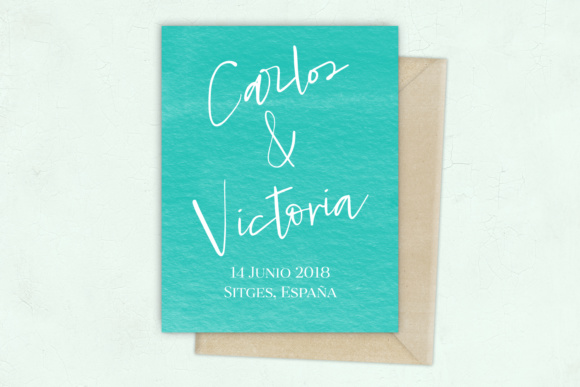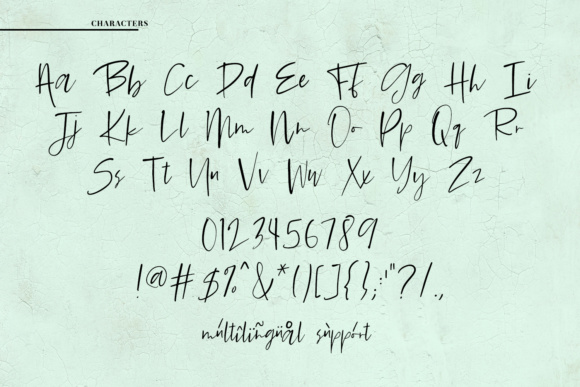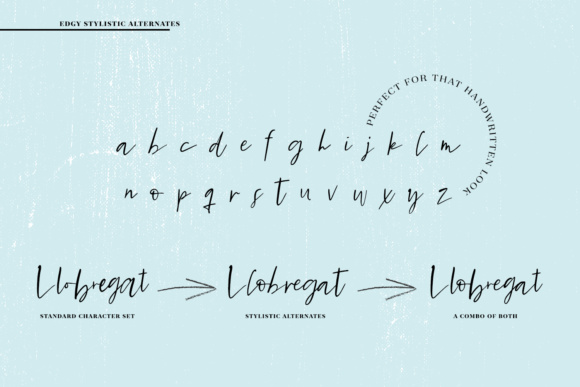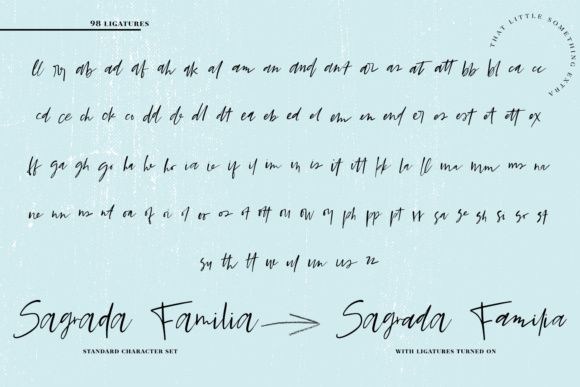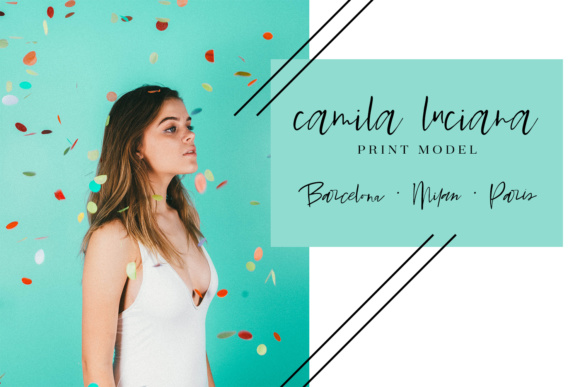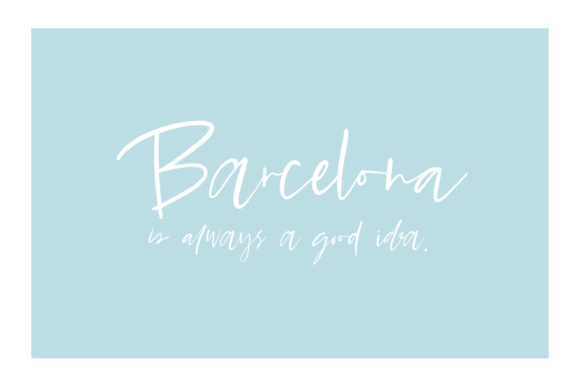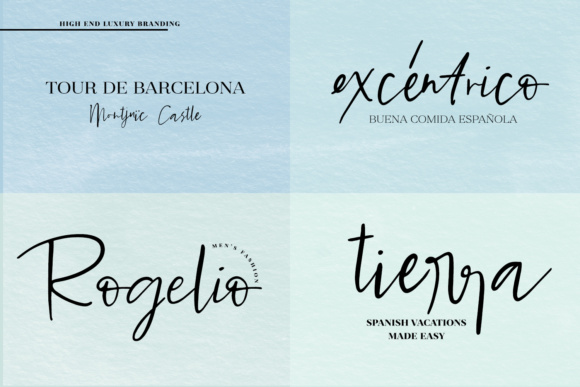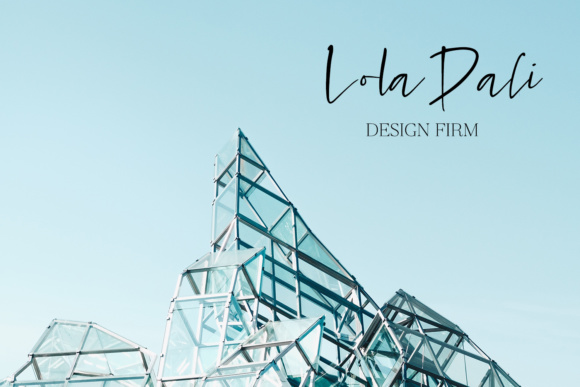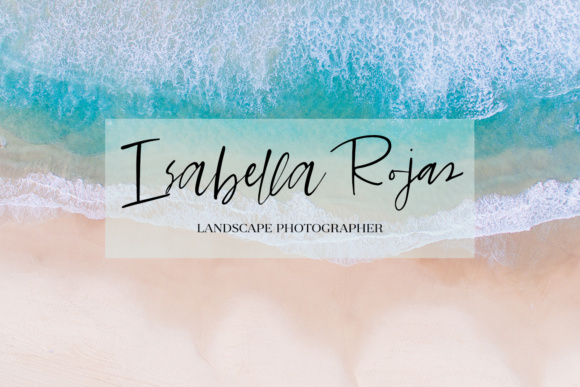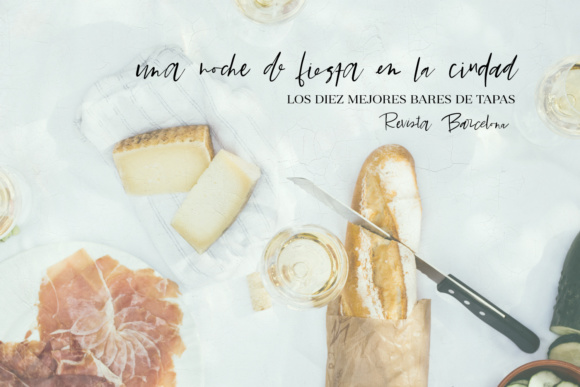
Barcelona Nights Font
About Barcelona Nights Font
Barcelona Nights is a summer font for a casual yet edgy upscale look.
Barcelona Night is a luxury signature-style font, crafted with a lot love and looking back on nights spent in this beautiful, artistic, hip city. If you are a brand designer, you need this font in your arsenal. It would be perfect for high-end brands for fashion designers, photographers, trendy restaurants, or other edgy modern brands. Barcelona Nights is an incredibly diverse font with robust features both in the look + feel of the font, and in the programming.